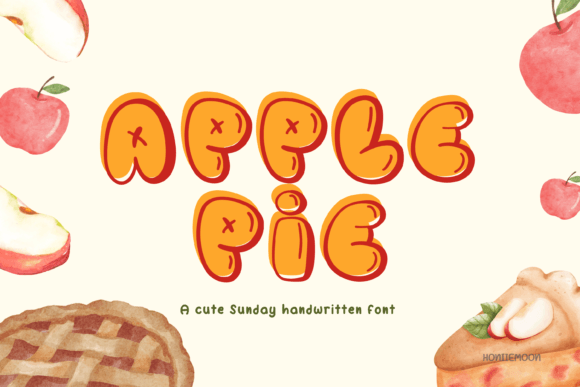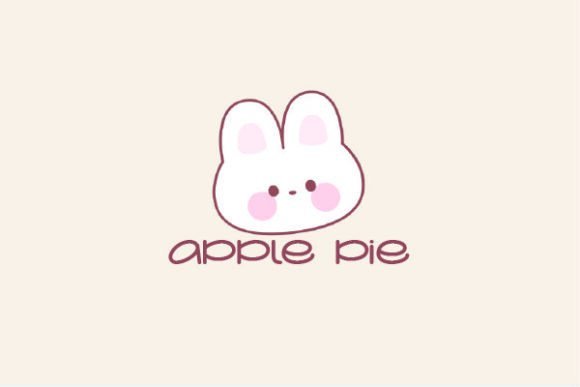
Adding a Pinch of Whimsy to Your Designs Do you remember the feeling of curling up with a favorite book as a child, the illustrations jumping off the page to transport you to a world of wonder? As designers, we strive to recreate that magic in our own work, but sometimes it’s the smallest details…